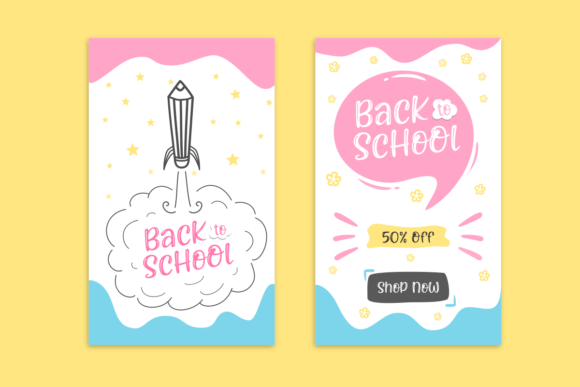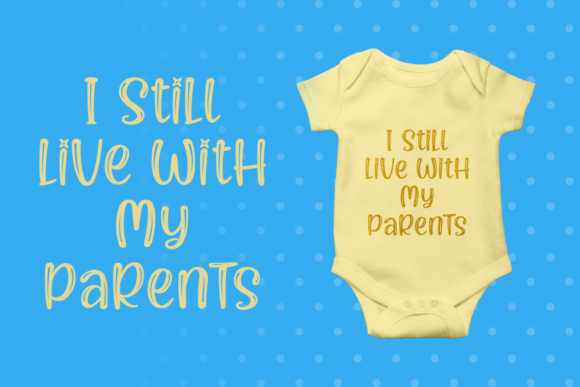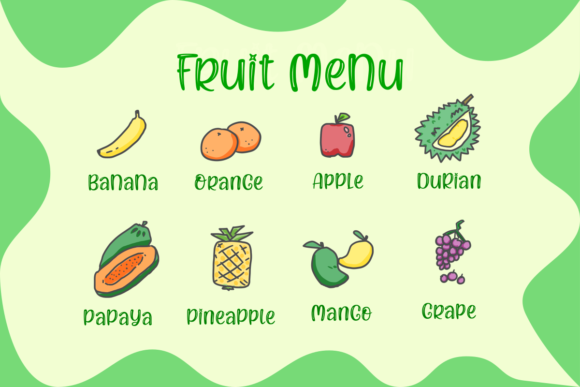
Introduction to Pithick Crispy Font
Pithick Crispy is a fun and friendly display font.
It will elevate a wide range of design projects to the highest level, be it branding, headings, wedding designs, invitations, signatures, logos, labels, and much more .
Key Features of Pithick Crispy Font